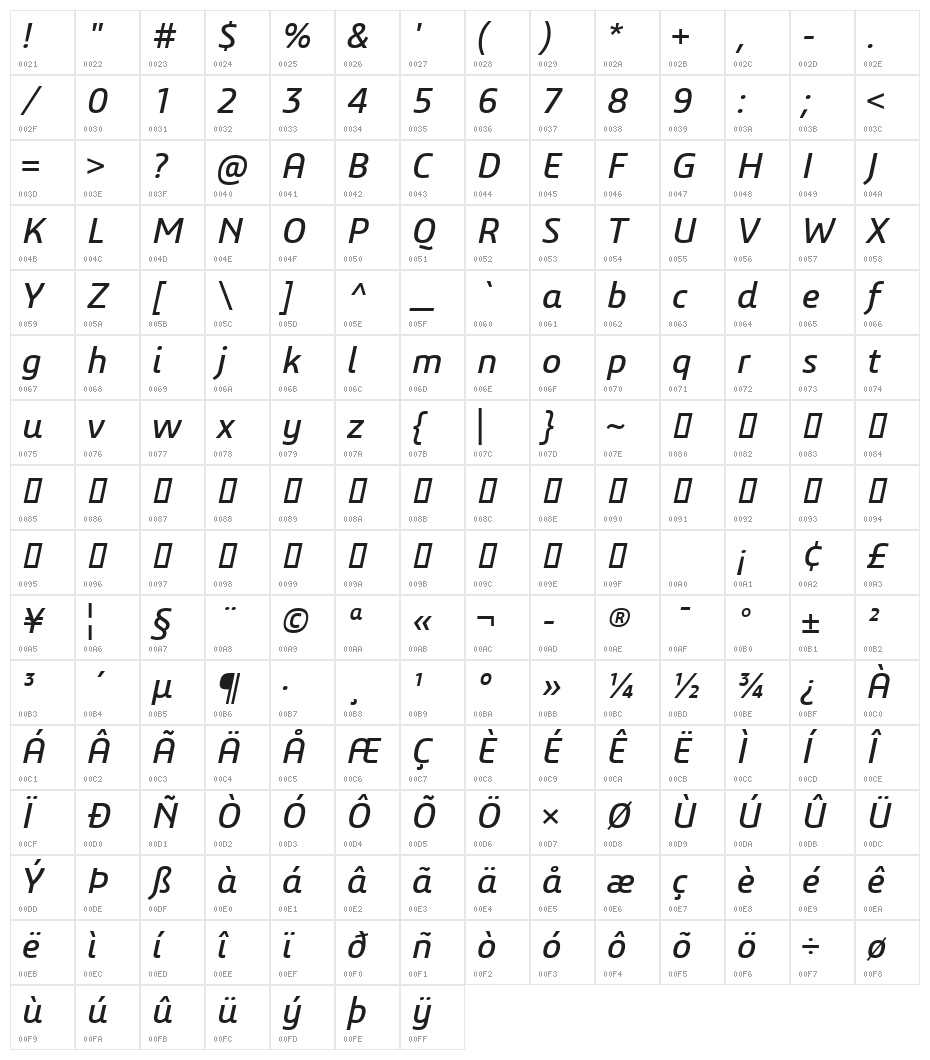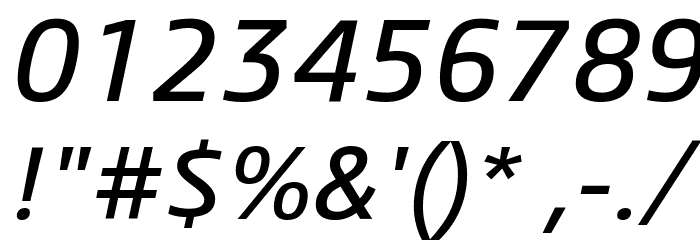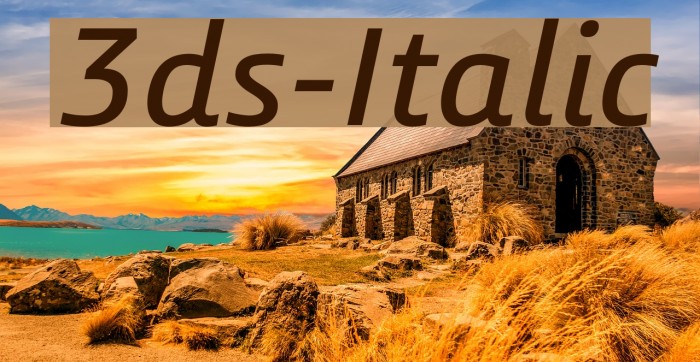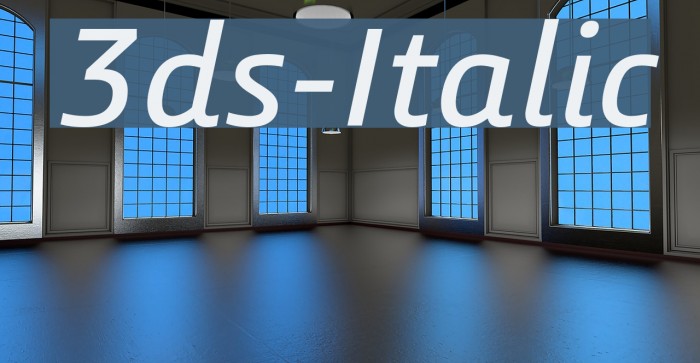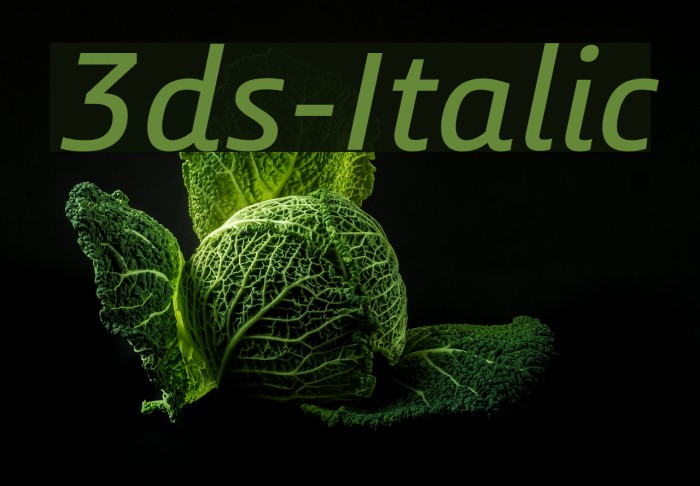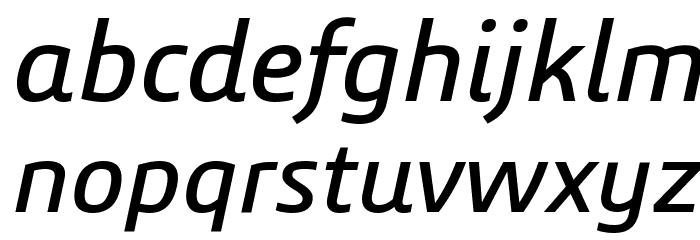
3ds-Italic Font
3ds-Italic Description
This font features a sleek, italicized design that exudes a modern and dynamic feel. The characters are slightly slanted, giving a sense of motion and fluidity. The strokes are clean and consistent, with a medium contrast between thick and thin lines. The overall appearance is streamlined and professional, making it suitable for a variety of applications. The spacing between characters is normal, ensuring readability while maintaining a stylish look. This font is versatile, offering a contemporary edge to any project.
| Use Case | Headlines, Logos, Digital Media |
| Proposed Projects | Ideal for branding, advertising, and digital media projects that require a modern and dynamic touch. |